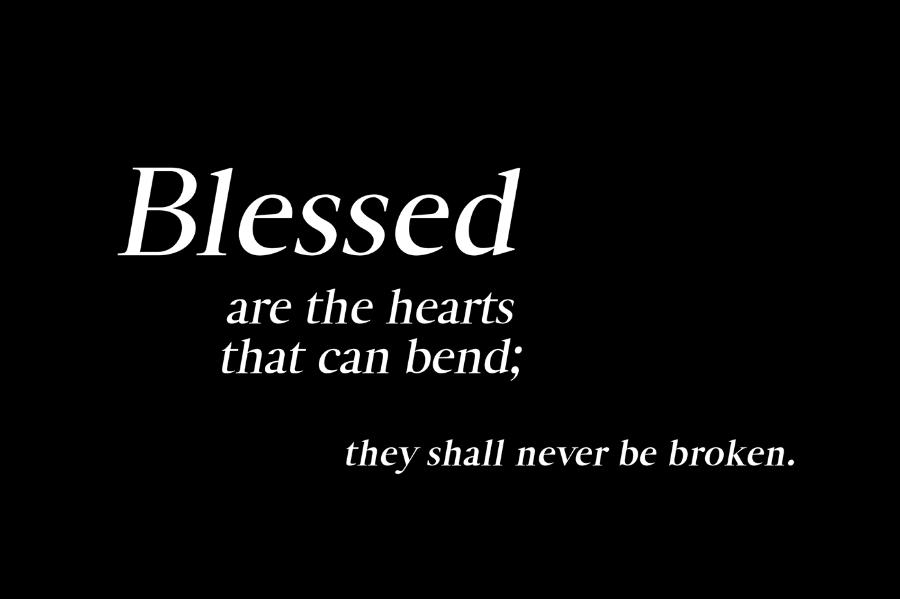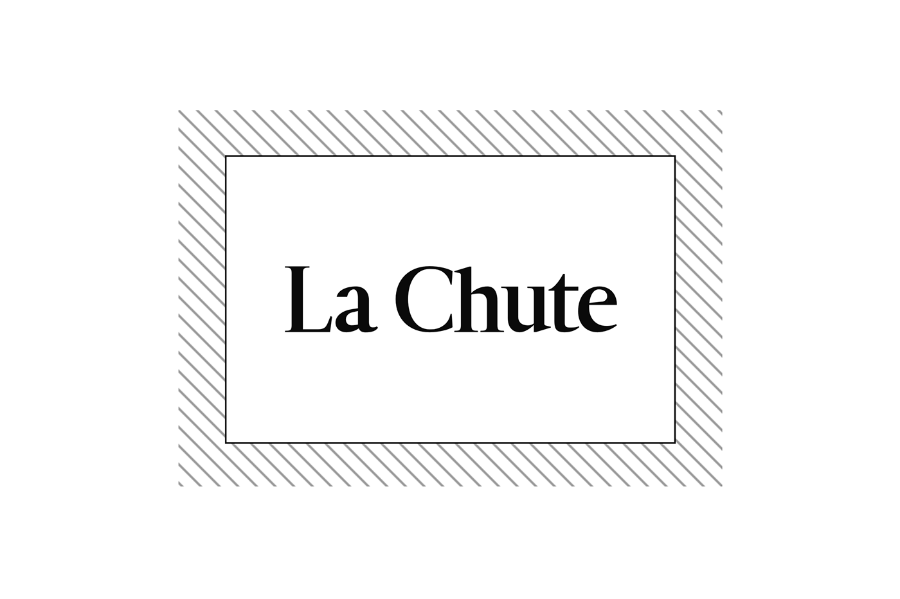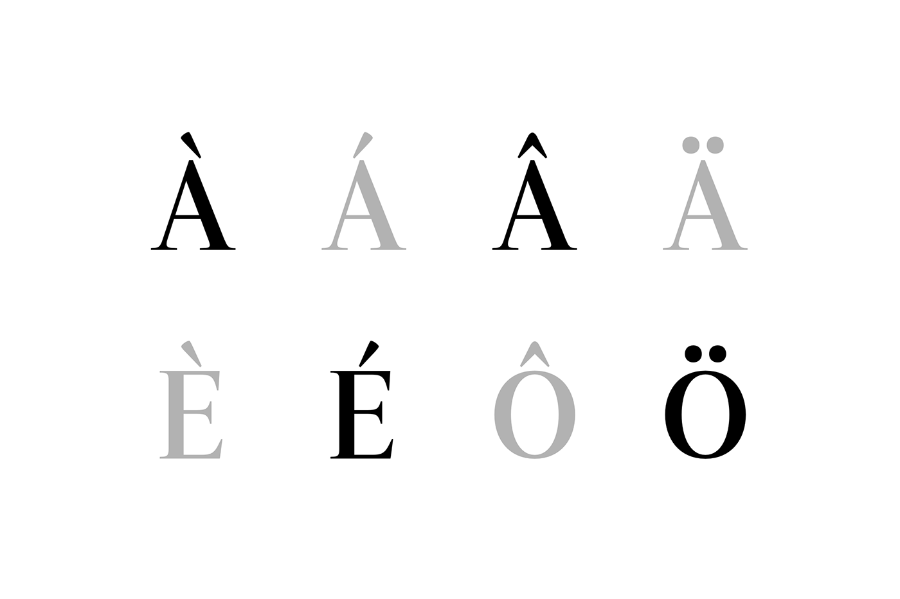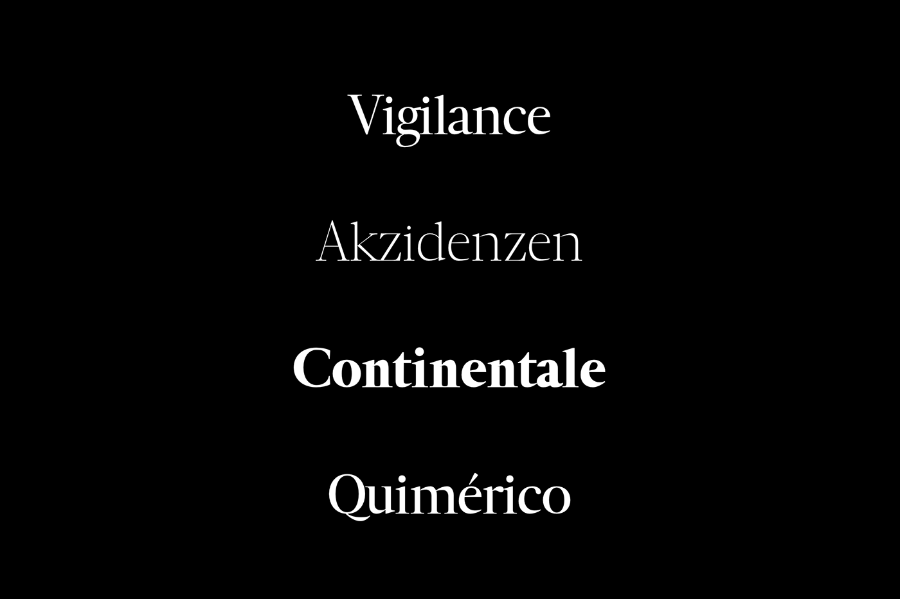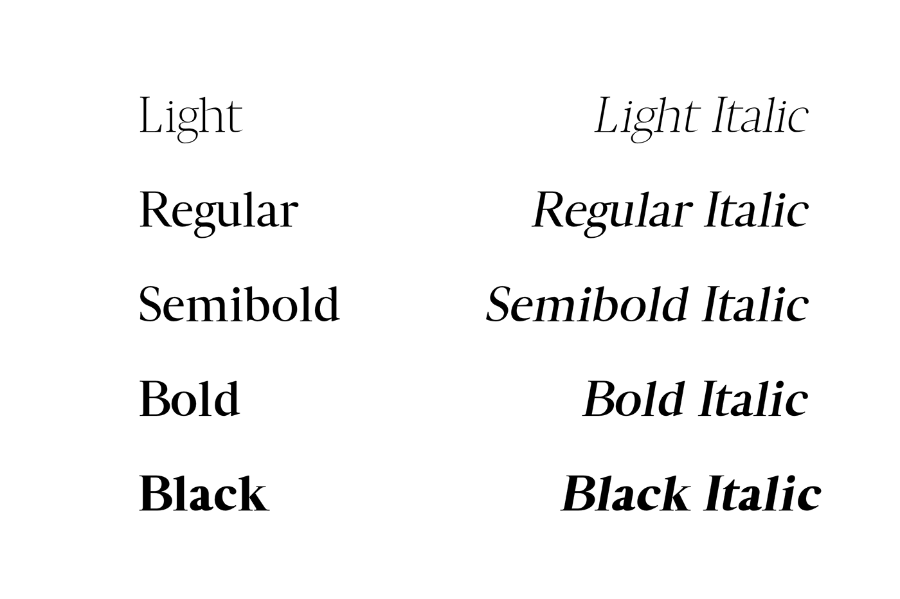
Luzia Font Family
Hi world. Introducing Luzia Font Family! Luzia Font designed and shared by Quill Type Co. Luzia is an evocative serif font family, with a marked x-height and flowing letterforms. The typeface expresses a wealth of character, support for nearly all European languages and works beautifully for both headings as well as body text.